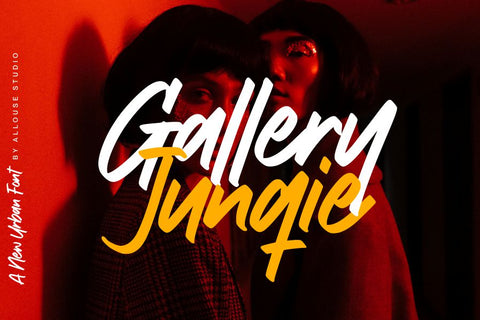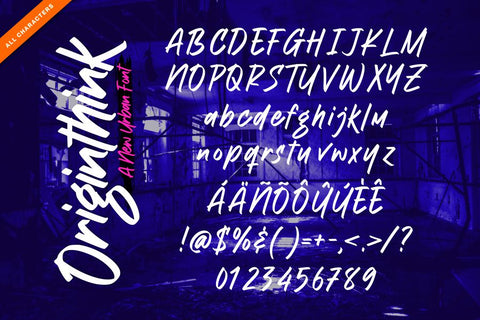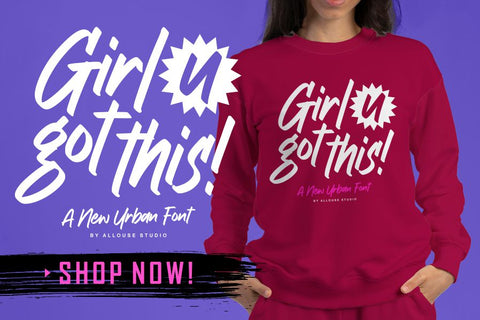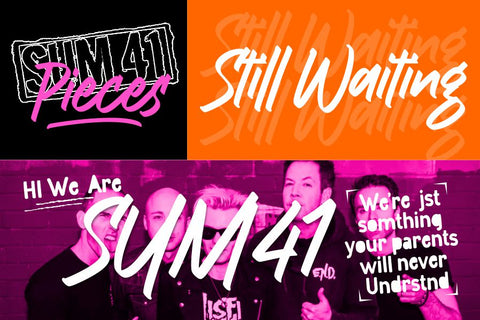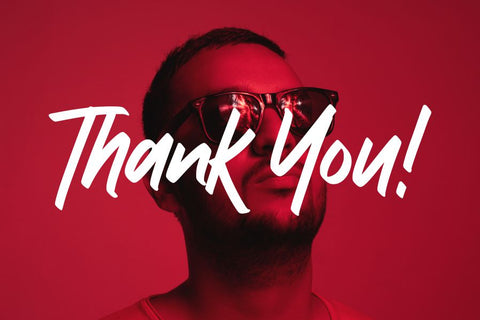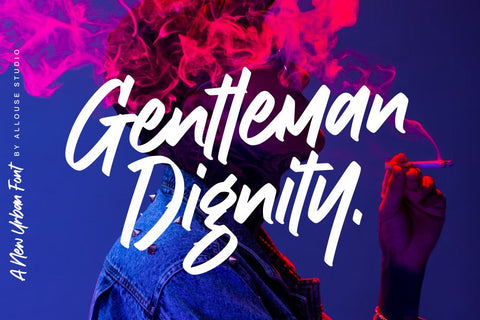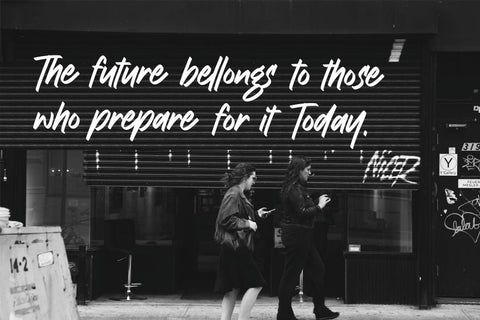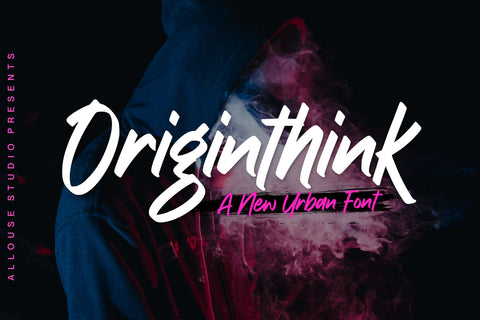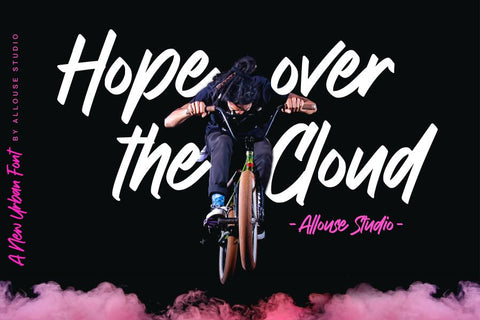
Originthink
Proudly Present, Originthink
Originthink is A New Urban Font
Originthink is perfect for product packaging, branding project, megazine, social media, wedding, or just used to express words above the background.